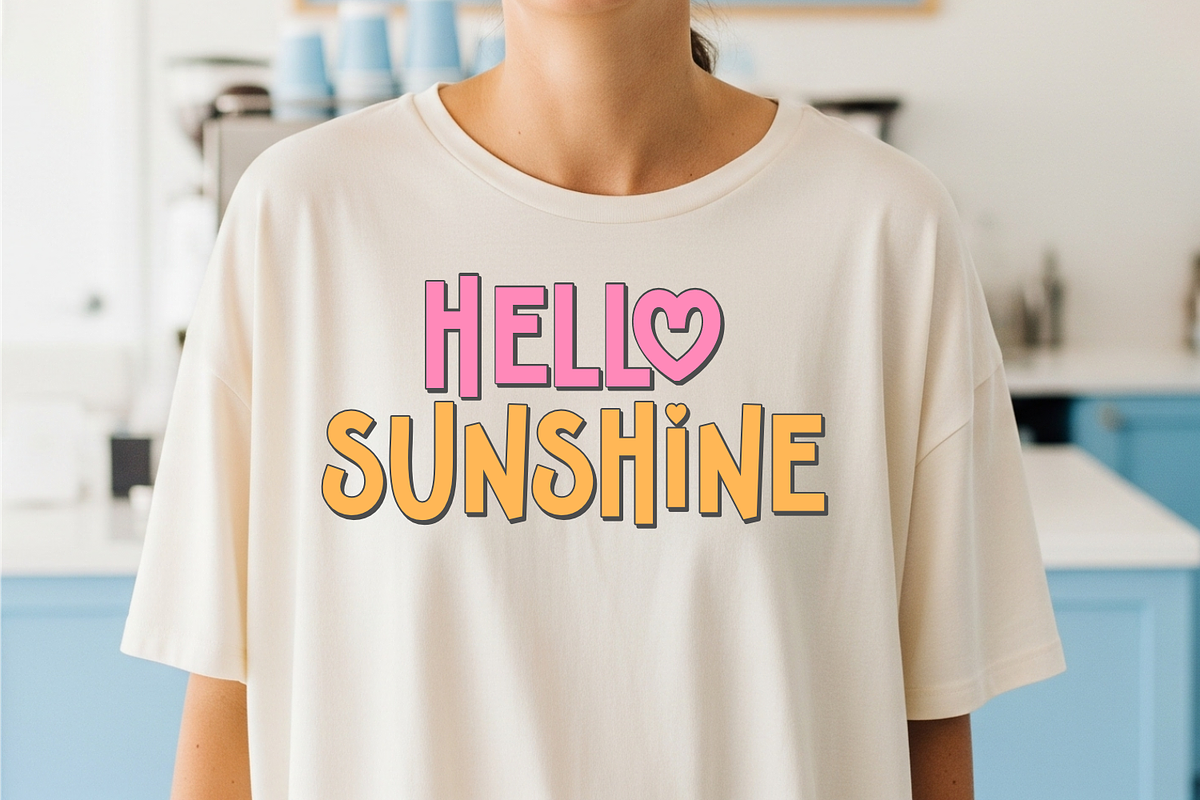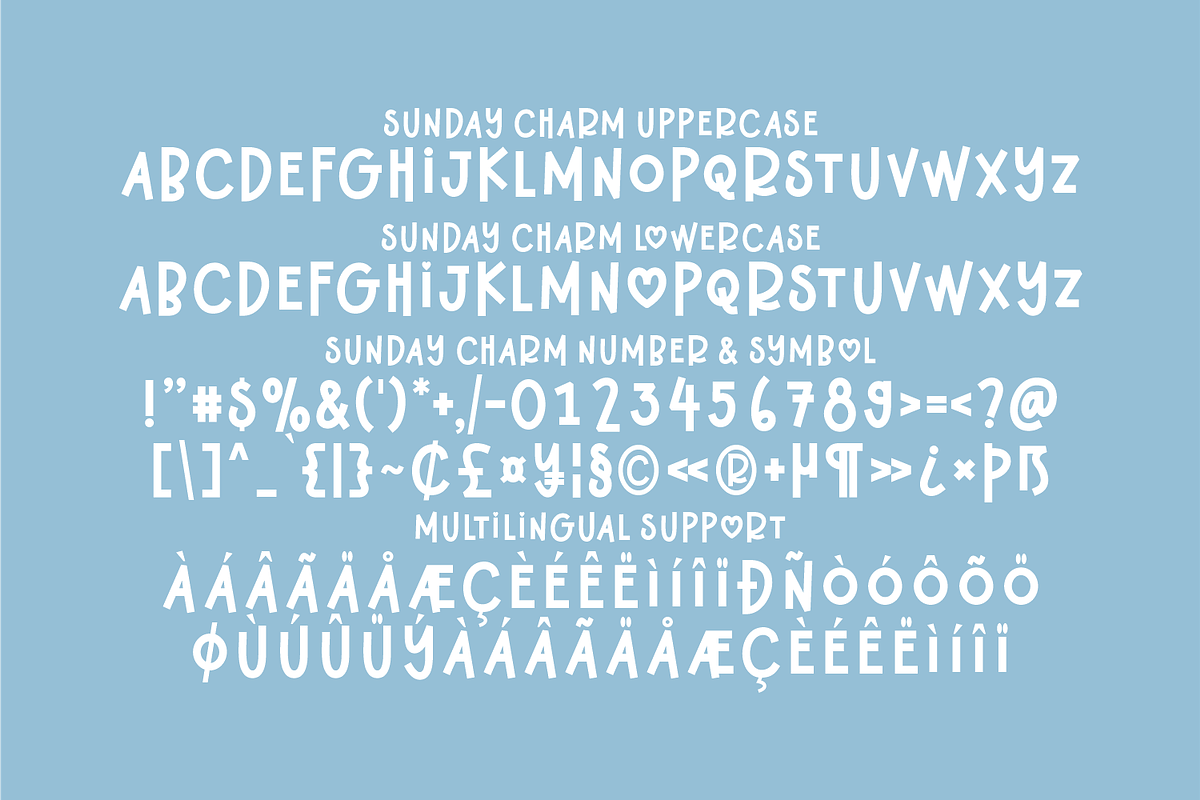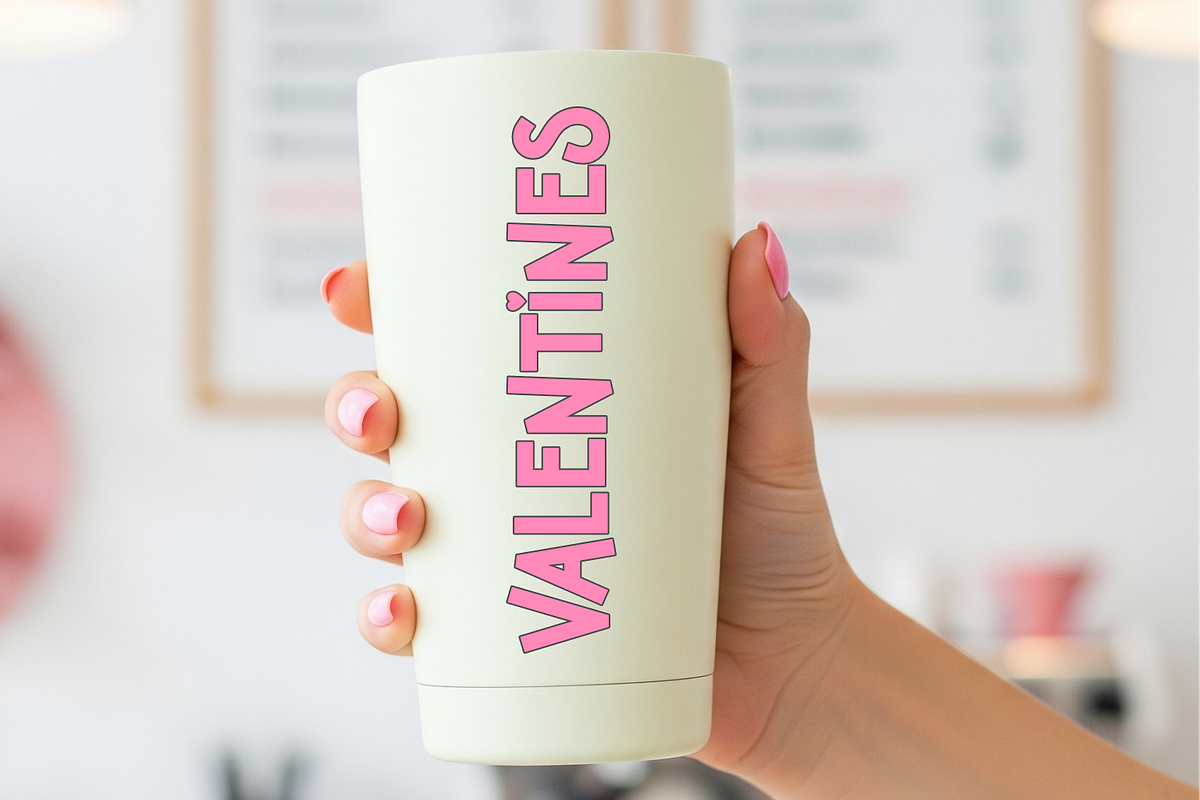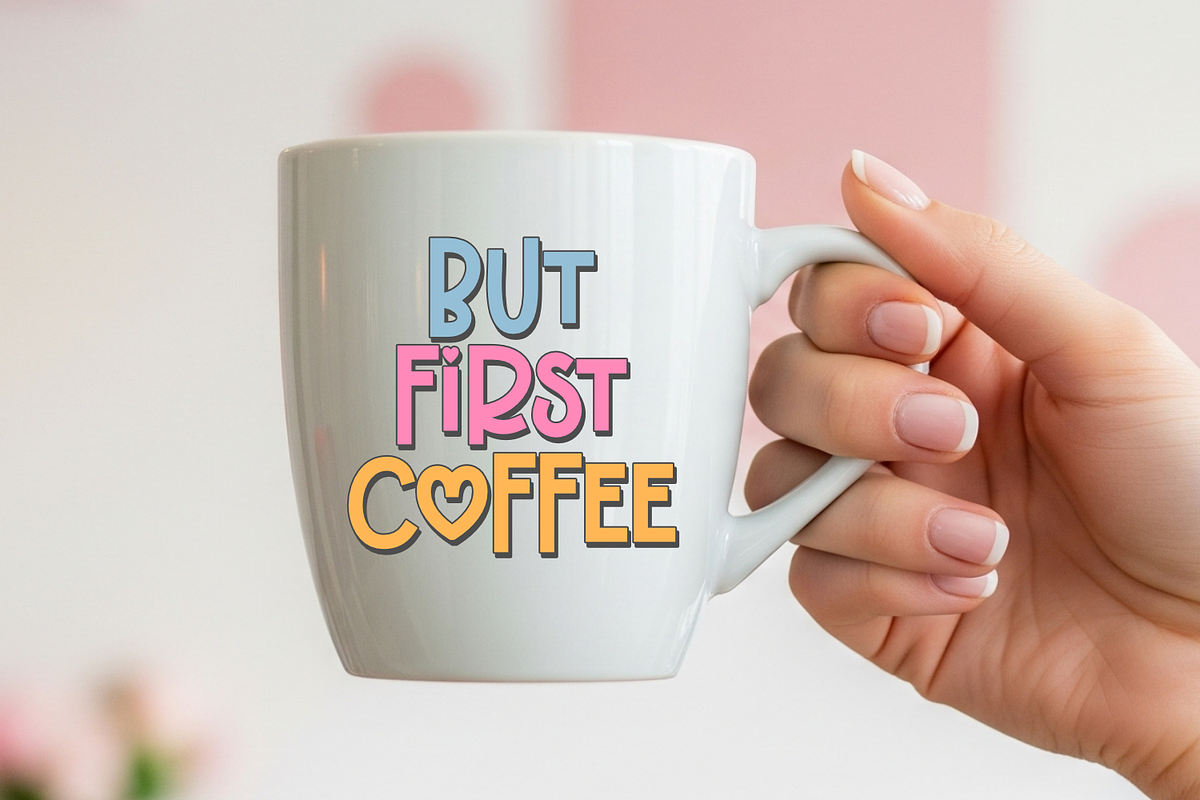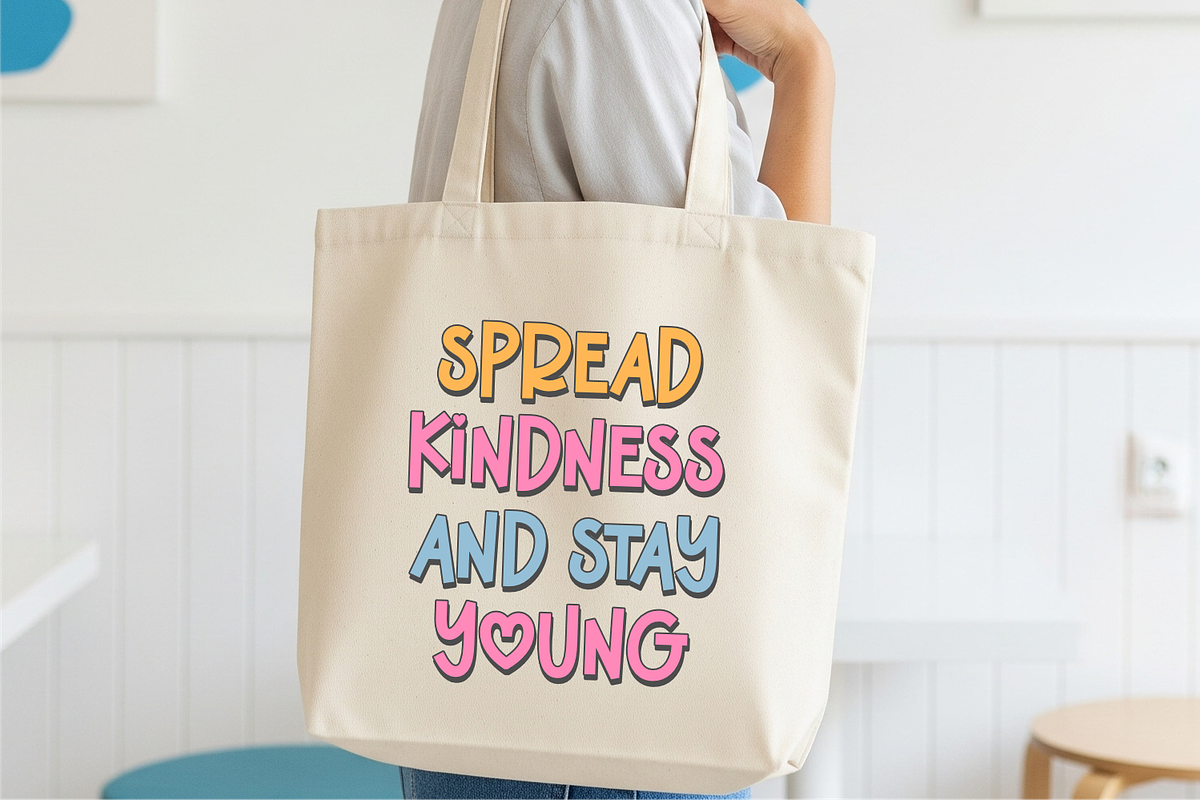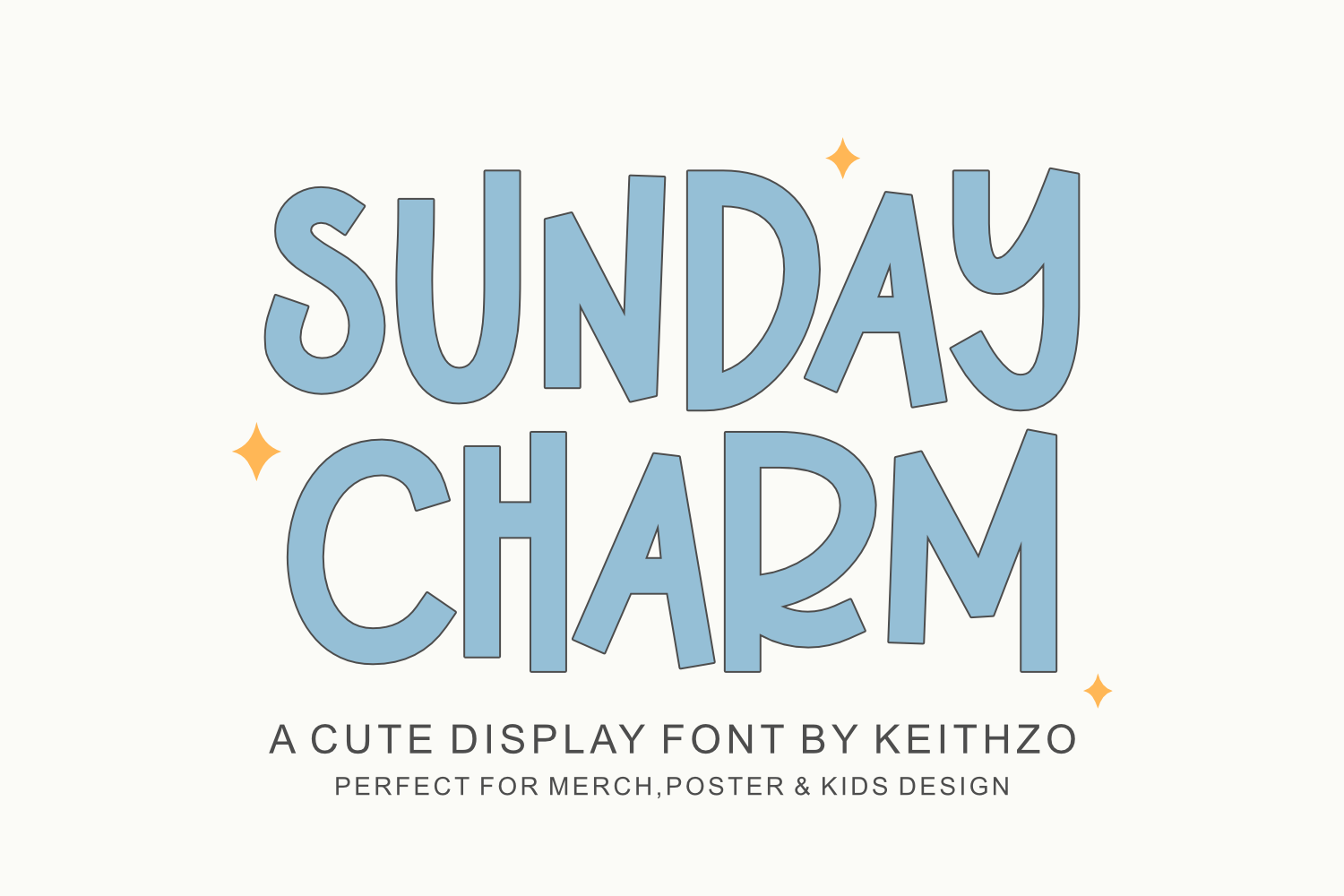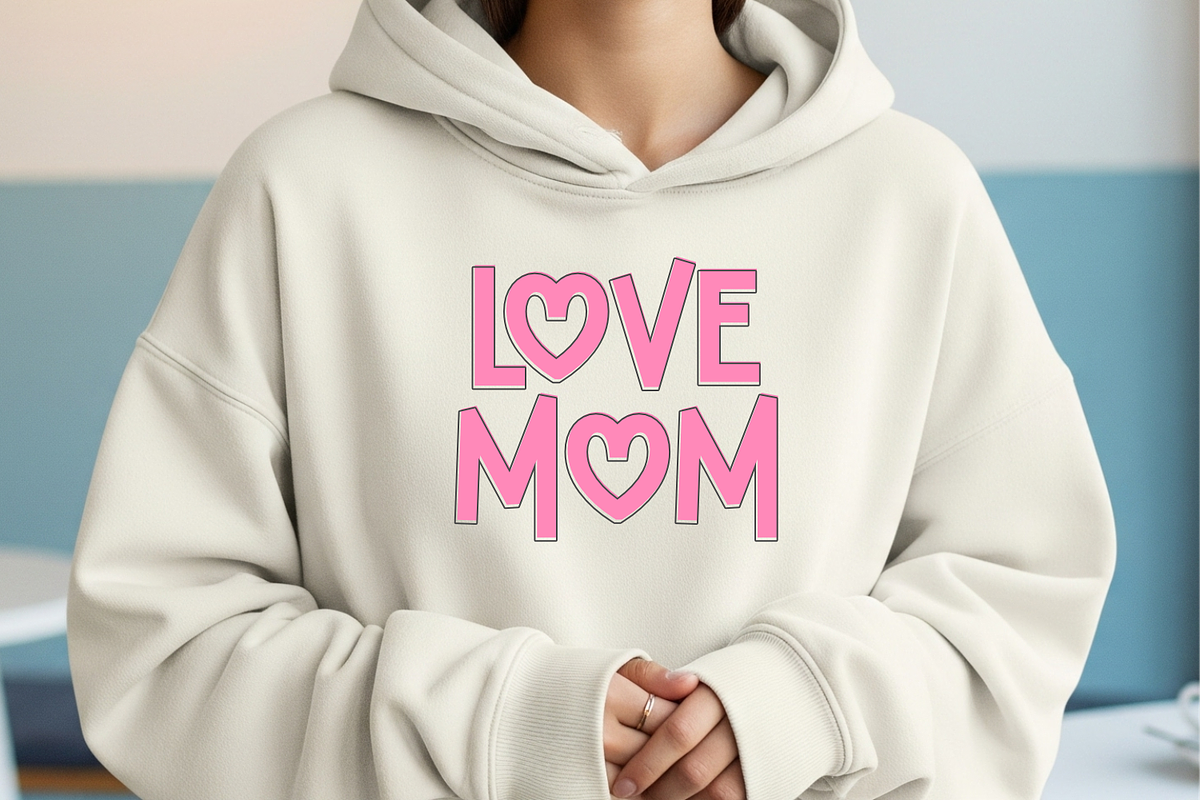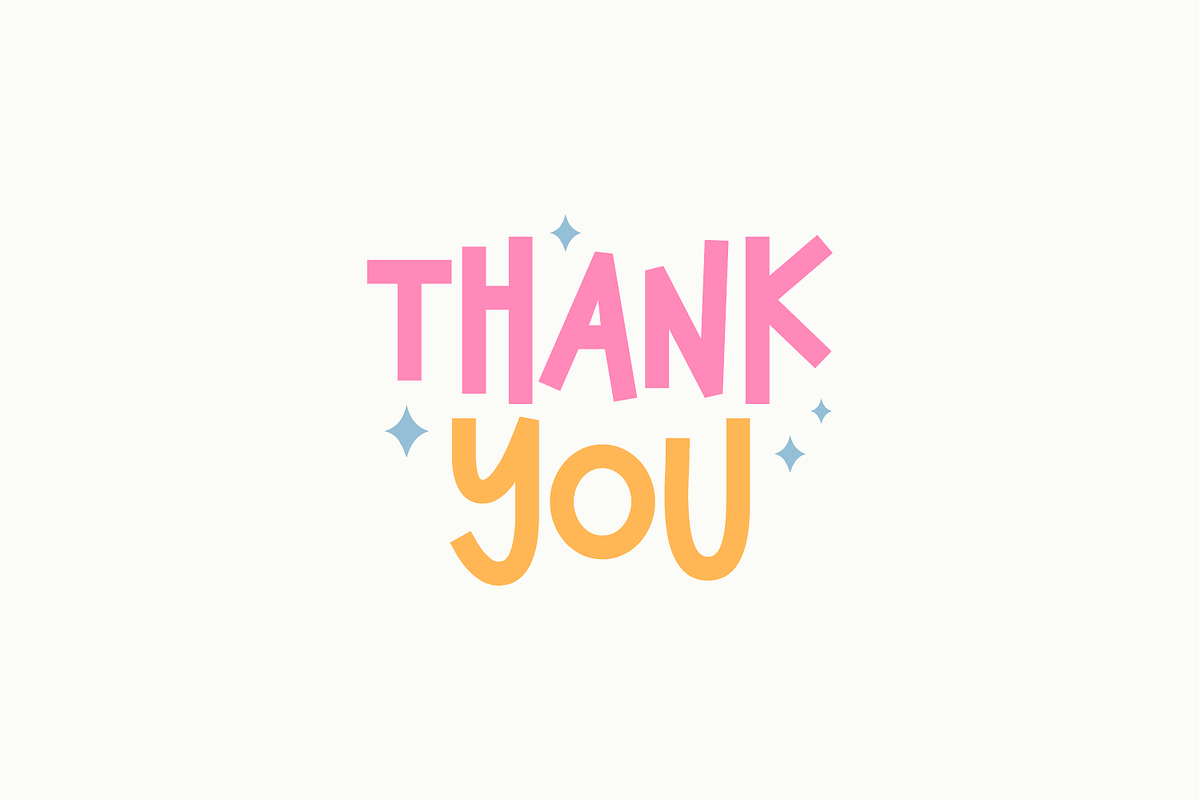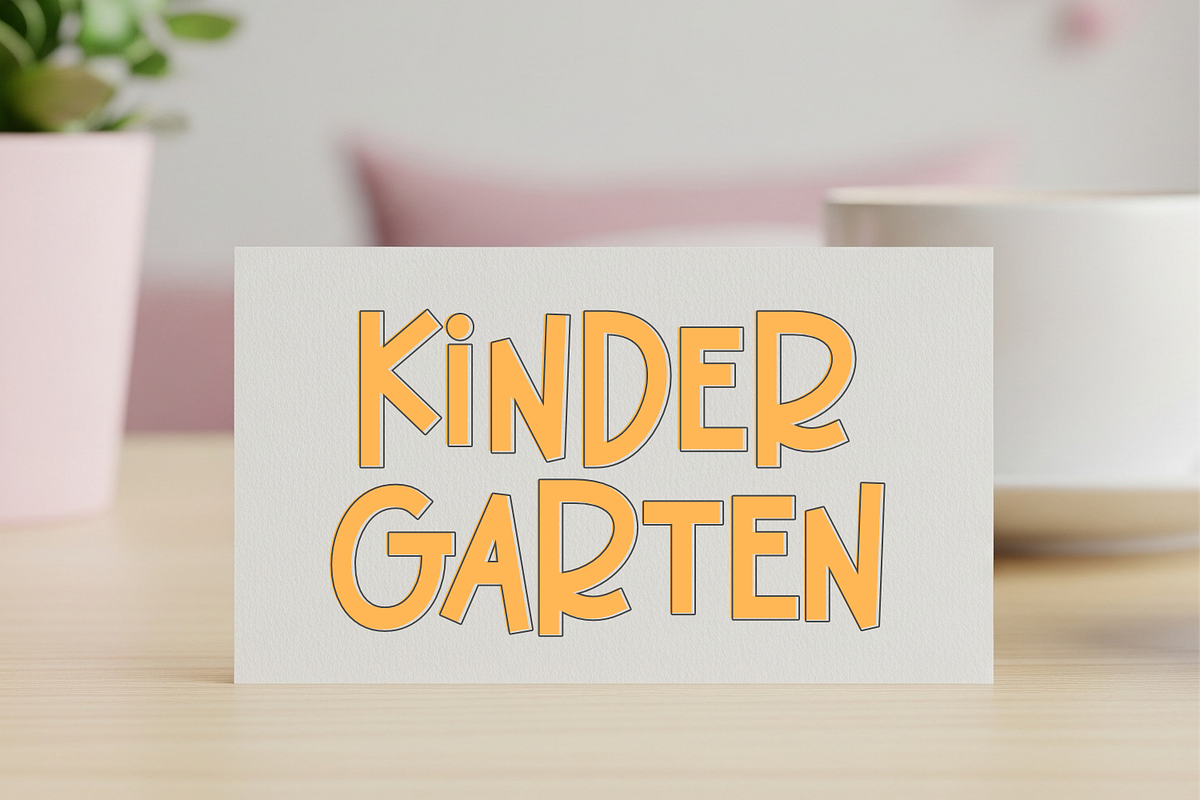
Sunday Charm - Display Font
Bring a touch of magic to your designs with Sunday Charm, a delightful and friendly display font. This typeface is perfect for adding a whimsical, handcrafted feel to any project.
Sunday Charm features soft, rounded edges and a slightly irregular baseline, giving it a playful, bouncy character. The lighthearted charm of this font makes it ideal for designs that need to feel approachable and fun. Each letter is carefully crafted to stand out, creating a unique and memorable visual appeal.
Inspired by hand-drawn lettering, Sunday Charm has an authentic and warm quality. Versatile: Its charming and readable style makes it suitable for a wide range of projects.